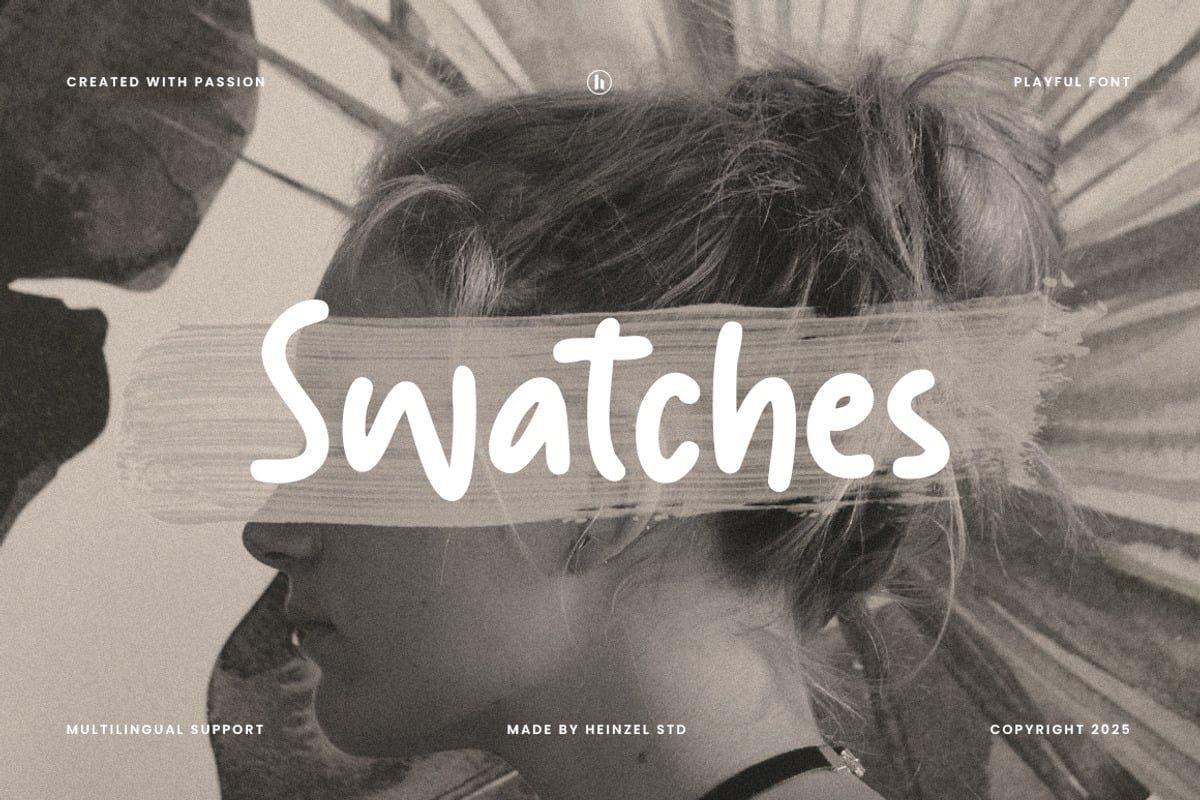
Swatches Handwritten Font
Swatches is the irresistibly cute handwritten font that brings warmth, sweetness, and playful charm to every project.
Soft, gentle, and full of personality, Swatches is a simple handwritten typeface that radiates adorable energy. Its vibrant, lighthearted character makes it impossible to resist — whether you're designing something sweet for a personal project or adding a touch of whimsy to professional work.
This typeface is a perfect fit for a wide range of creative applications, including:
- GoodNotes and digital planners
- School projects and educator materials
- SVG designs and stickers
- Home décor and wall art
- Quotes and blog headings
- Logos and branding
- Invitations and greeting cards